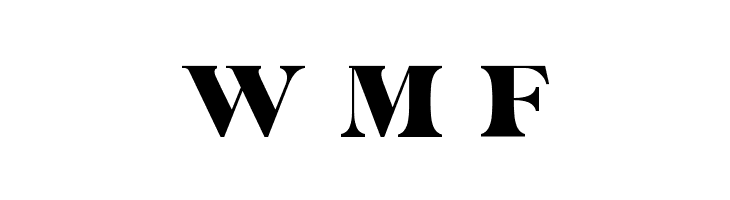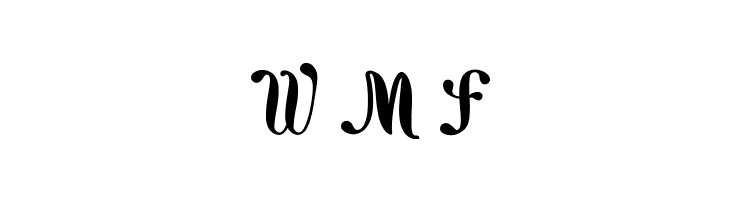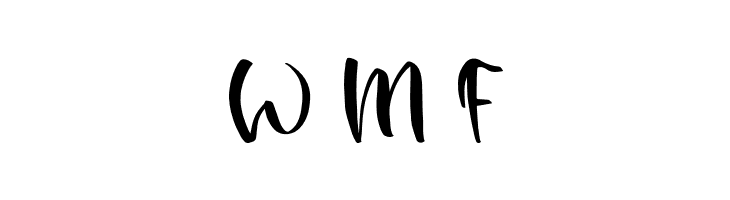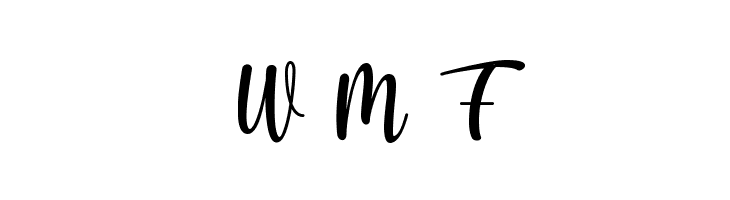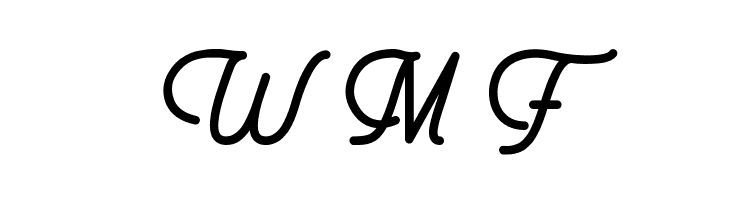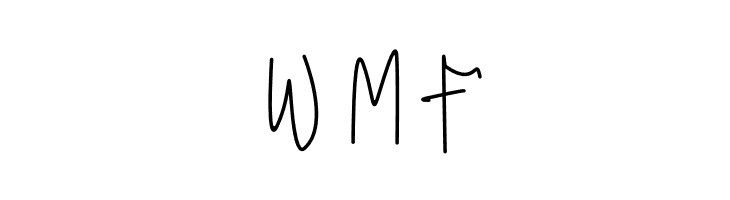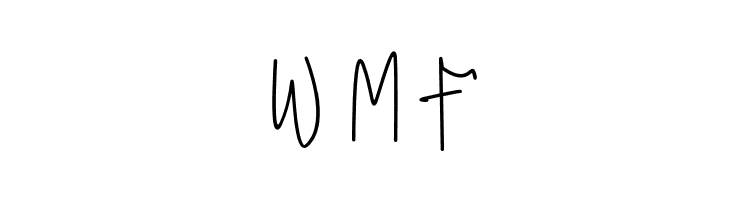
A lively and flowing script font with elegant, cursive letterforms.
A playful and whimsical script font with bold, flowing curves and decorative flourishes.
A bold, high-contrast font with decorative flourishes and a dramatic style.
A bold, dynamic handwritten font with fluid strokes and a cohesive style.
A playful, handwritten font with tall, thin strokes and a casual style.
An elegant font with flowing swashes and ornate details.
A playful, handwritten font with a casual and dynamic style.
A playful and artistic script font with fluid, dynamic strokes and a handwritten appearance.
A bold, expressive script font with interconnected, flowing letters.
A flowing, elegant cursive font with smooth, continuous strokes.